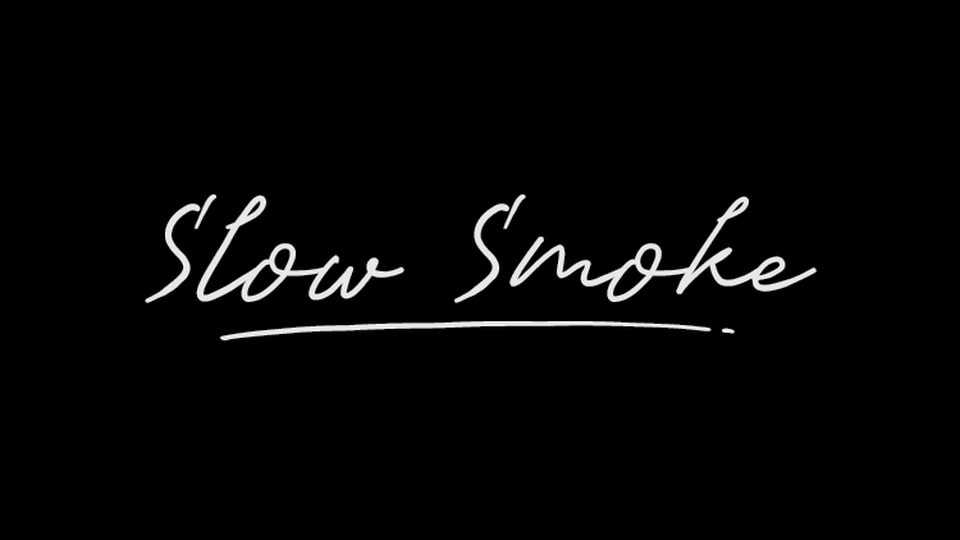
Download Slow Smoke font, the font that captures the effortless elegance of a handwritten signature with a touch of simplicity. Each character is designed to emulate the fluidity and natural flow of a personal signature while maintaining an easy-to-read, style.